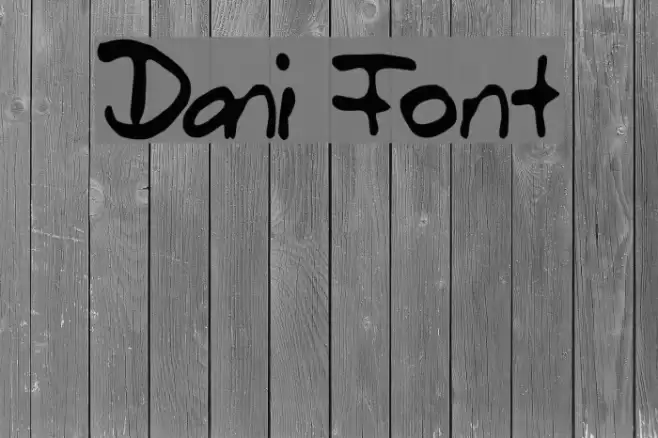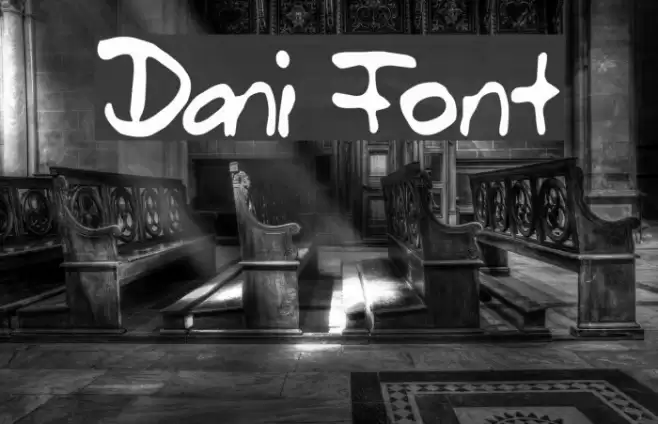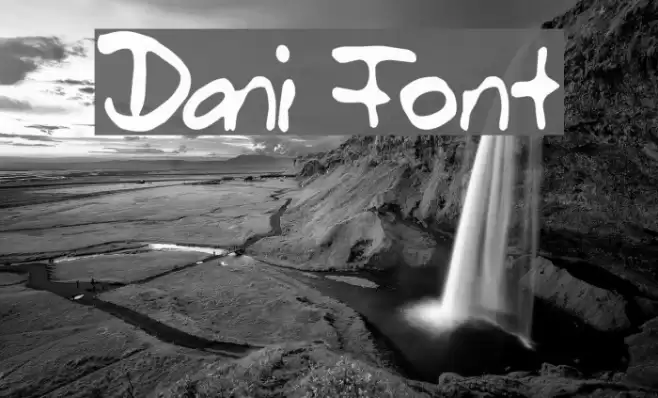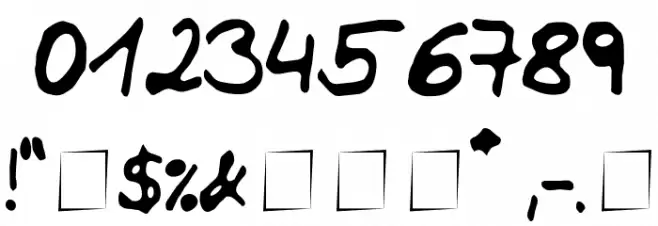
Dani Font
Dani Description
This font features a playful and casual handwritten style, characterized by its irregular strokes and slightly uneven baseline. The letters have a dynamic flow, with varying thickness that adds a personal touch to the text. The uppercase letters are bold and prominent, while the lowercase letters maintain a consistent style, enhancing readability. The numerals are distinct and easy to distinguish, complementing the overall informal aesthetic. Special characters are included, maintaining the same whimsical style, making this font versatile for various creative projects.
A playful, handwritten font with dynamic strokes and a casual aesthetic from Handwritten fonts.
- Overall Style: Casual
- Use Case: Headlines, Logos, Informal Text